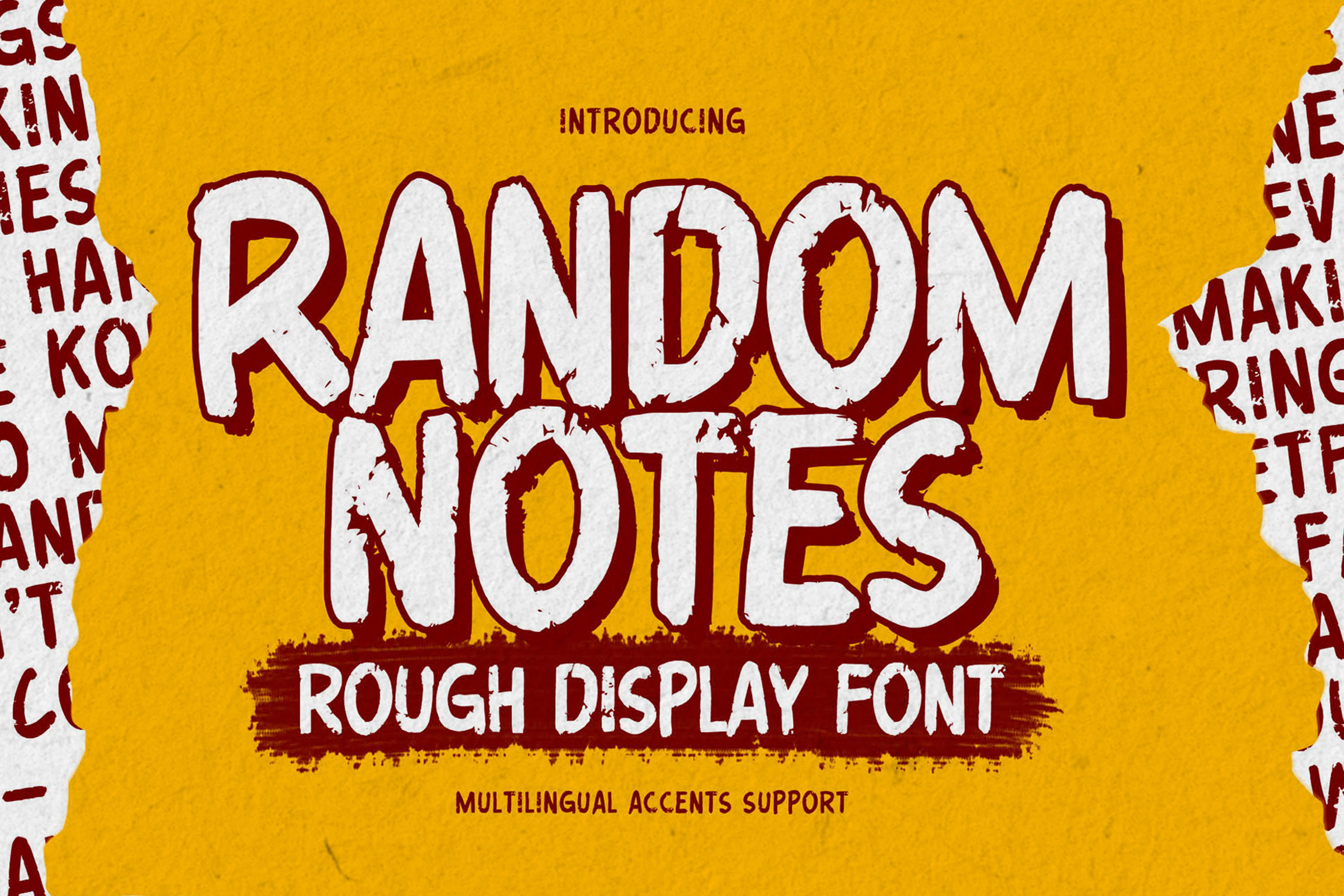
Random Notes - Rough Display Font
Hello Everyone,introduce our new product Random Notes is Rough Display Font Handmade Font is a Strong Style and classy style, This font is great for your next creative project such as logos, printed quotes, invitations, cards, product packaging, headers, Logotype, Letterhead, Poster, Label, cartoon, and comic etc.
This font is great for your creative projects such as watermark on photography, and perfect for logos & branding, photography, invitation. Random Notes is a natural handwritten feel. This handmade font will make your design has a beautiful natural touch for each details. It is perfect for any design project as Invitation,logo, book cover, craft or any design purposes,photos, photography overlays, signs, window art, scrapbooking, tags and so much more!